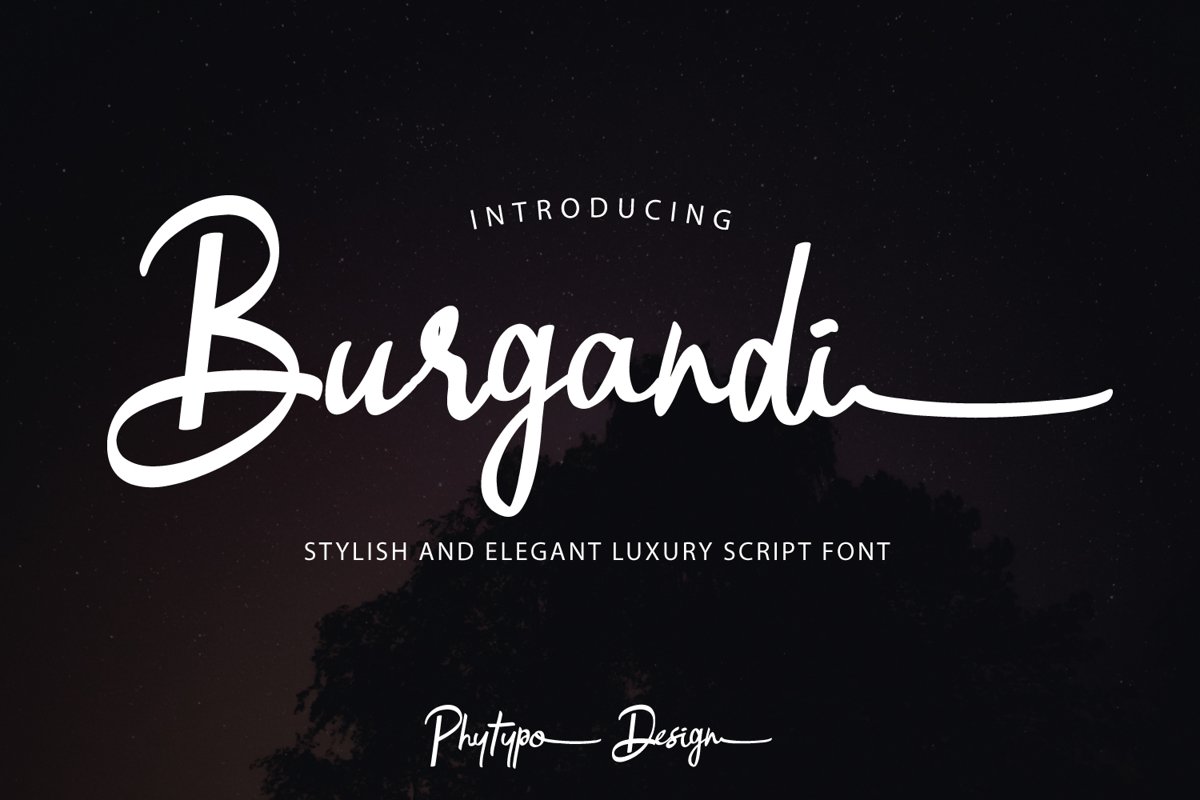
Burgandi Font
Burgandi
Burgandi Font is a Stylish and Elegant Luxury script font that suitable for your design project!
You can create many awesome product or project...